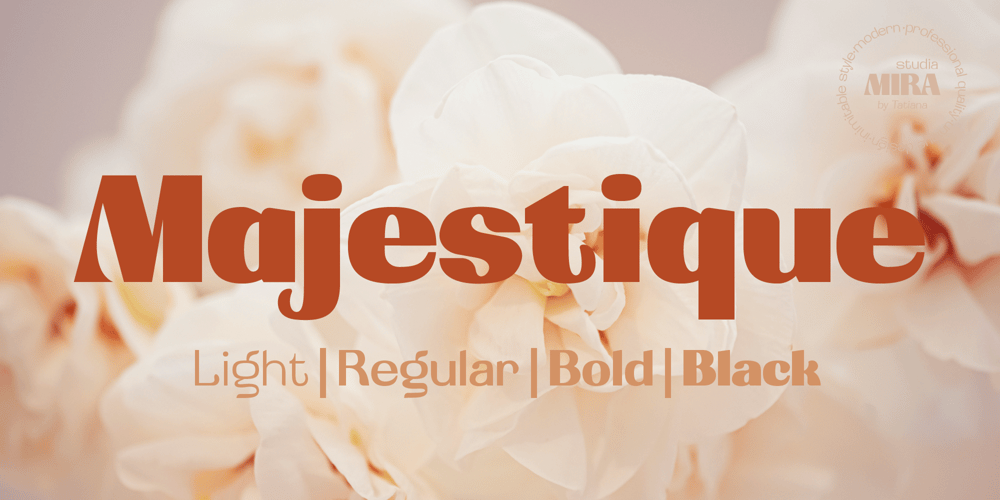
Majestique Font Family was designed by Tatiana Yunina and published by Mira. Majestique contains 8 styles and family package options. The development of the Majestique typeface drew inspiration from advertising campaigns of the 1970s. While refined, the font exudes a nostalgic essence, injecting vitality and personality into your projects. 4 typefaces and 4 italic styles, Majestique allows you to select the option the best fits your needs. Utilizing Majestique will undoubtedly elevate your project’s visibility, whether it be in packaging, web design, portfolios, or any other visual medium. Seize the opportunity to infuse your next project with the iconic aesthetic of the 1970s using Majestique!